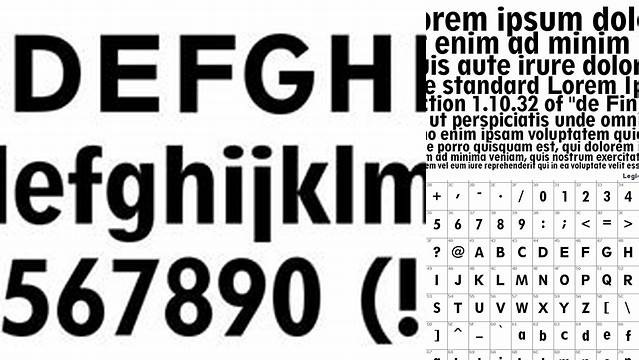
Hey guys, are you looking for a strong, impactful font that screams attention? Well, look no further because the Geometric 212 STD Heavy Condensed font is here to save the day! This font is a real powerhouse, perfect for making your designs pop. Let's dive into everything you need to know about this awesome typeface, from where to grab it for free to how to use it like a pro. This comprehensive guide will walk you through the features, uses, and best practices for using the Geometric 212 STD Heavy Condensed font in your creative projects. We will discuss its characteristics, where to download it for free, and how you can use it effectively to create stunning designs. Get ready to transform your designs with this incredible font!
Geometric 212 STD Heavy Condensed is a bold, condensed sans-serif font. Its heavy weight and tight spacing make it ideal for headlines, titles, and any design element where you need a strong visual statement. The condensed nature of the font allows you to fit more text into a smaller space, making it efficient for layouts with limited real estate. The font’s clean and geometric design gives it a modern and sophisticated look, suitable for a wide range of projects. Whether you're designing posters, websites, logos, or social media graphics, this font can add a touch of elegance and impact. The availability of this font as a free download makes it accessible to everyone, from seasoned designers to hobbyists. Using this font, you can create designs that are not only visually appealing but also communicate your message with clarity and confidence. The font's versatility and impact make it a favorite among designers looking to make a bold statement.
Key Features of Geometric 212 STD Heavy Condensed
First off, let's talk about what makes this font so special. The Geometric 212 STD Heavy Condensed font is all about making a statement. Its most notable feature is its heavy weight. This means the strokes are thick and bold, making it incredibly visible, even from a distance. This is super important for things like headlines and titles where you want to grab someone's attention immediately. Next up is the condensed style. This means the letters are squished together, allowing you to fit a lot of text into a small space. This is ideal for designs where space is limited, like posters or website headers. The geometric design is another key feature. The font is built on simple geometric shapes, giving it a clean, modern look. This makes it versatile and suitable for various design styles, from minimalist to more complex layouts. Because of these features, the font provides a balance between readability and impact, making it ideal for both display and short-form text. Its ability to convey strength and clarity makes it a go-to choice for designers looking to create a strong visual statement. The consistent stroke width and geometric forms contribute to its overall legibility.
The condensed nature of the font ensures that your text remains impactful without occupying excessive space. This allows you to use the font in diverse design contexts. Its versatility stems from its ability to fit into various design styles. The font's design, characterized by clean lines and geometric shapes, adds a touch of sophistication to any project. The font is not just visually appealing, it also adds a layer of professionalism to your work, making it a favorite among designers who want to make a strong impression. The combination of heavy weight, condensed style, and geometric design gives the Geometric 212 STD Heavy Condensed font a unique character. It can elevate your designs and make your message stand out from the crowd. The design is both functional and visually appealing, which is a rare combination. By understanding these features, you can use the font in a way that maximizes its impact and enhances your designs.
It’s important to remember the importance of choosing the right font for your project. The Geometric 212 STD Heavy Condensed font provides both the strength and space-saving qualities that are crucial for effective design. Its features ensure that your message is both noticeable and professional.
Best Uses for Geometric 212 STD Heavy Condensed
So, now that you have the font, how do you use it? The Geometric 212 STD Heavy Condensed font is a real workhorse, perfect for a variety of design projects. It’s really a versatile font, but it shines in specific areas. Let's explore some of its best applications.
- Headlines and Titles: This is where the font truly excels. The heavy weight and condensed style make it perfect for grabbing attention. It is ideal for headlines, titles, and subheadings in posters, flyers, websites, and social media graphics. The font's boldness ensures that your message will stand out. The condensed nature allows you to use the font in designs with space constraints. The font’s strong visual presence will immediately draw the viewer's eye. This makes it perfect for making a strong first impression. The impact of the font will draw your audience in, and it's very important to choose the right font to create the right look and feel. This font is a great choice.
- Logos and Branding: Its clean, geometric design makes it a great choice for logos, especially for brands looking for a modern and professional look. Its bold and condensed style allows the brand name to be compact yet impactful. It adds professionalism and style to any logo. The versatility of the font allows it to fit within various design aesthetics. It works well in the brand's identity, contributing to its visual appeal. The font’s geometric characteristics make it a versatile choice.
So there you have it, guys! The Geometric 212 STD Heavy Condensed font is an excellent choice for your design projects. It's free, impactful, and versatile. By understanding its features, best uses, and following the tips, you can use this font to make a big impact. Whether you're designing a website, creating a poster, or working on a logo, this font can help you achieve your creative vision. So go out there, download the font, and start creating awesome designs! Have fun and enjoy the creative process, and let your imagination run wild. Don't be afraid to experiment and let this font elevate your designs. With the right approach, you can transform your design projects and leave a lasting impression on your audience. Have fun designing! The font provides you with all the tools you need.